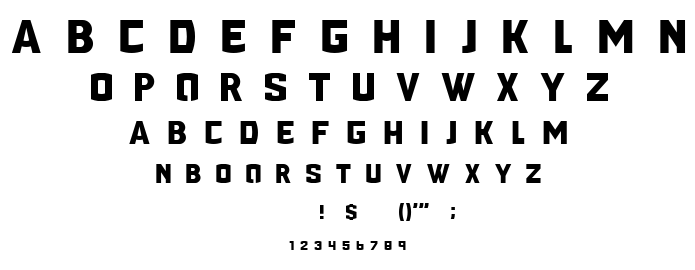
PORT118 is a free uppercase typeface inspired by port cities and the typography on ships that pass by their shores and lay in the docks. A strong, clear typeface that fits their character.